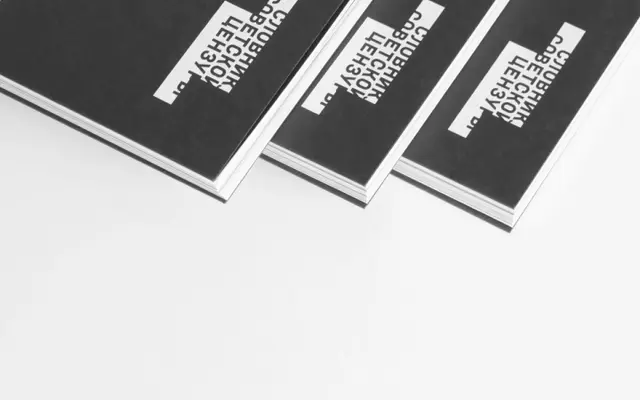
Institut
A single-weight grotesque covering Latin and Cyrillic across 72 languages, suited to editorial and institutional work.
Institut is a restrained grotesque available in one weight, with coverage spanning 72 languages across Latin and Cyrillic scripts. Its even stroke rhythm and neutral character make it a workable choice for exhibition design, editorial use and identity systems with a functional register. Seen in use by Tuman Studio and in exhibition contexts, suggesting a lean toward cultural and institutional applications.
Institut presents as a restrained, neutral grotesque with even stroke weight and a single-weight offering, typical of functional display and text sans-serifs in the European grotesque tradition.